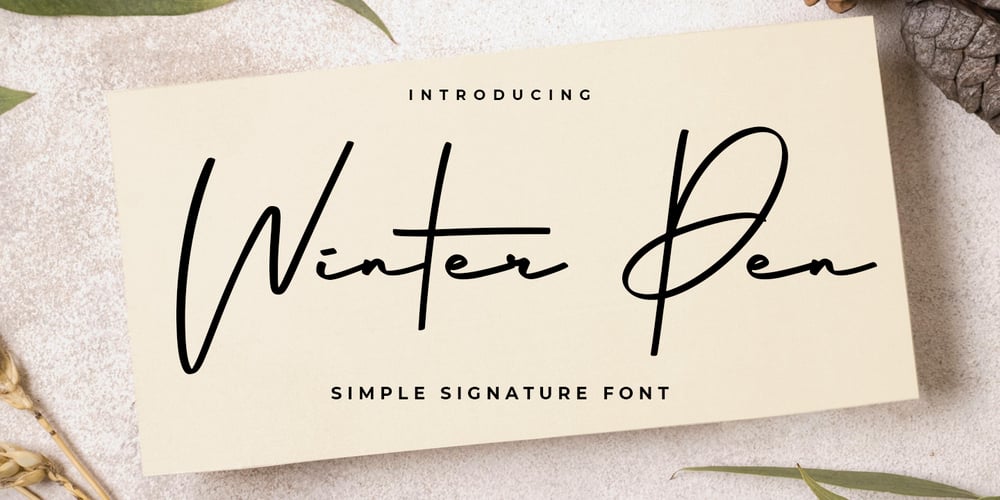
Winter Pen
Winter Pen font
Winter Pen Font Family was designed by Abo Daniel and published by Abo Daniel. Winter Pen contains 2 styles and family package options. IntroducingWINTER PEN- simple signature font -This font is great for branding, logo, signature, packaging, t-shirt design, social media and anything your project that need an elegant taste.It came with two styles : Regular and Italic.Features: Uppercase Lowercase Number & Punctuations Multilingual Support PUA Encoded Hope you love itGrab it fast…regards,Abo Daniel Studio